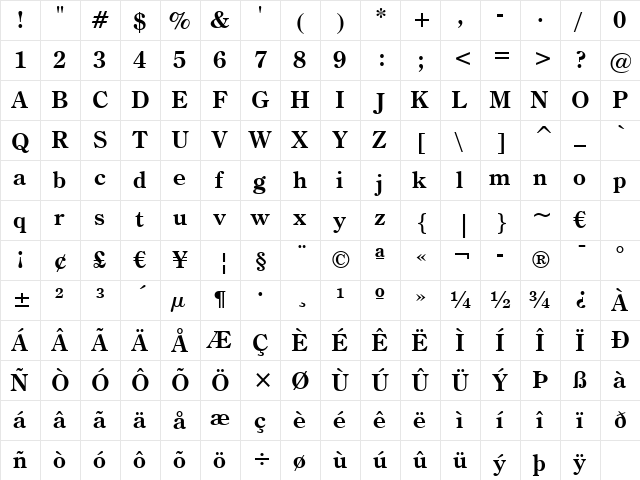
CenturyOldst BT Bold Font Preview
CenturyOldst BT Bold
Design Context for CenturyOldst BT Typeface
CenturyOldst BT is a composed and adaptable typeface that performs quietly and consistently across a wide range of design contexts. The heavy weight commands attention and anchors typographic hierarchies.
Pro Tip: Use CenturyOldst BT in both headline and body roles to test its range before committing to a single application.